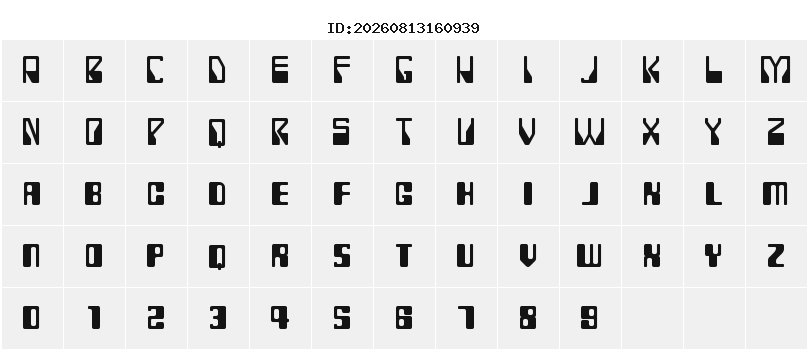
ROLLERBALL 1975 Preview
• Font Name: ROLLERBALL 1975
• Full Font Name: ROLLERBALL 1975
• Version: Version 1.00 June 22, 2012, initial release
About ROLLERBALL 1975.ttf
ROLLERBALL 1975.ttf is a modern, elegant sans-serif font designed for ultimate readability and visual harmony. Perfect for branding, headlines, web design, and print materials.